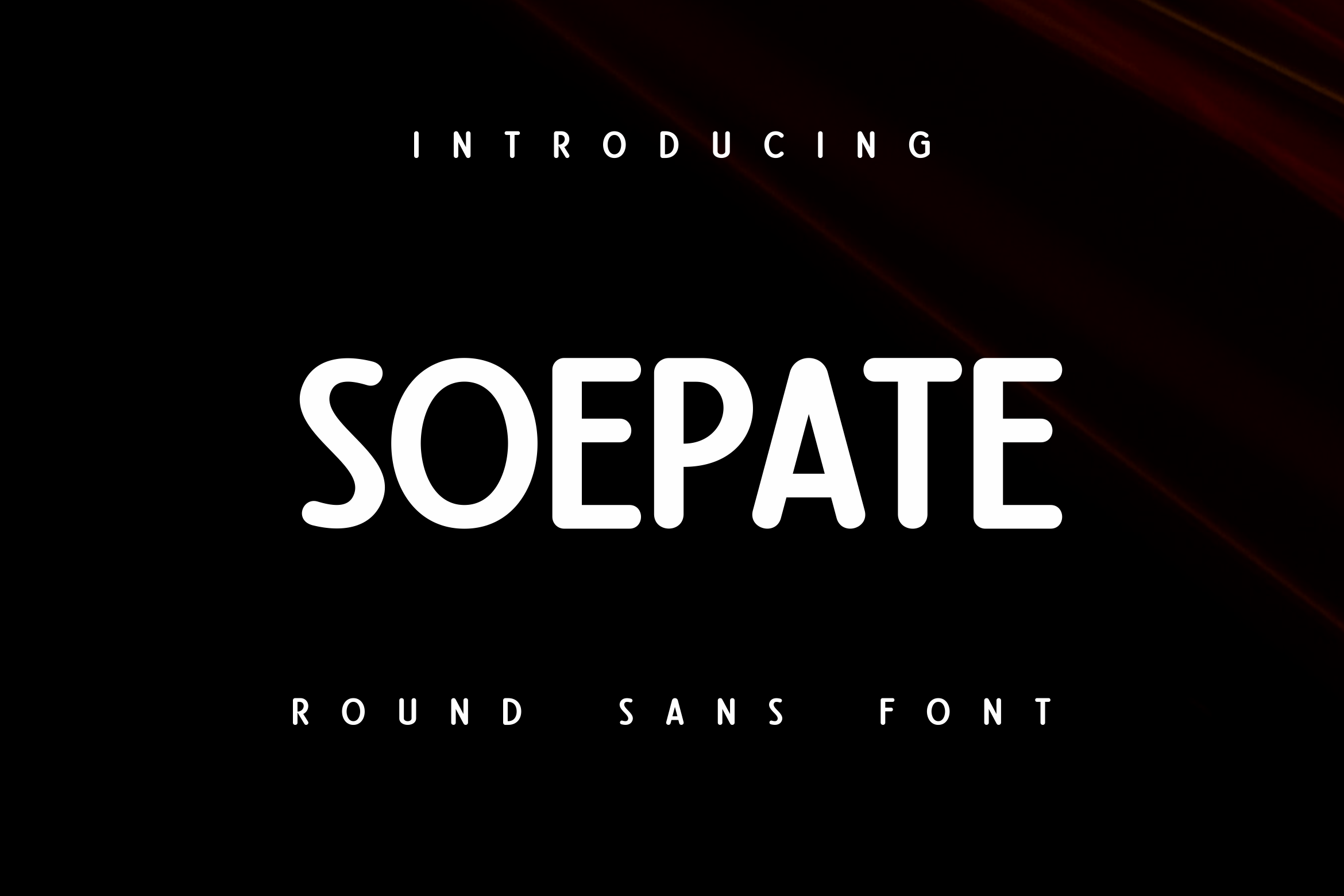
Soepate Rounded Font
Soepate is a refined round sans-serif font designed for versatility and readability. Available in OTF and TTF formats, it is ideal for use in magazines, news articles, and paragraphs, delivering a modern yet elegant touch to your typography projects.